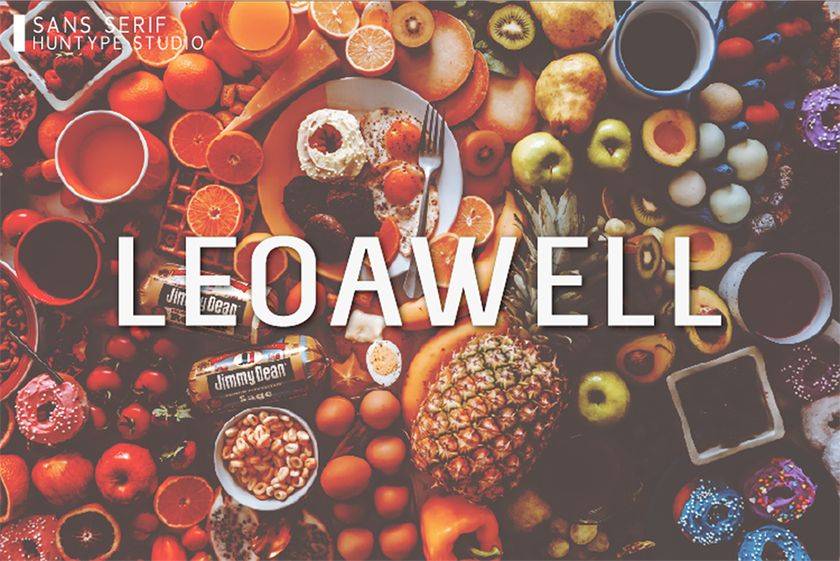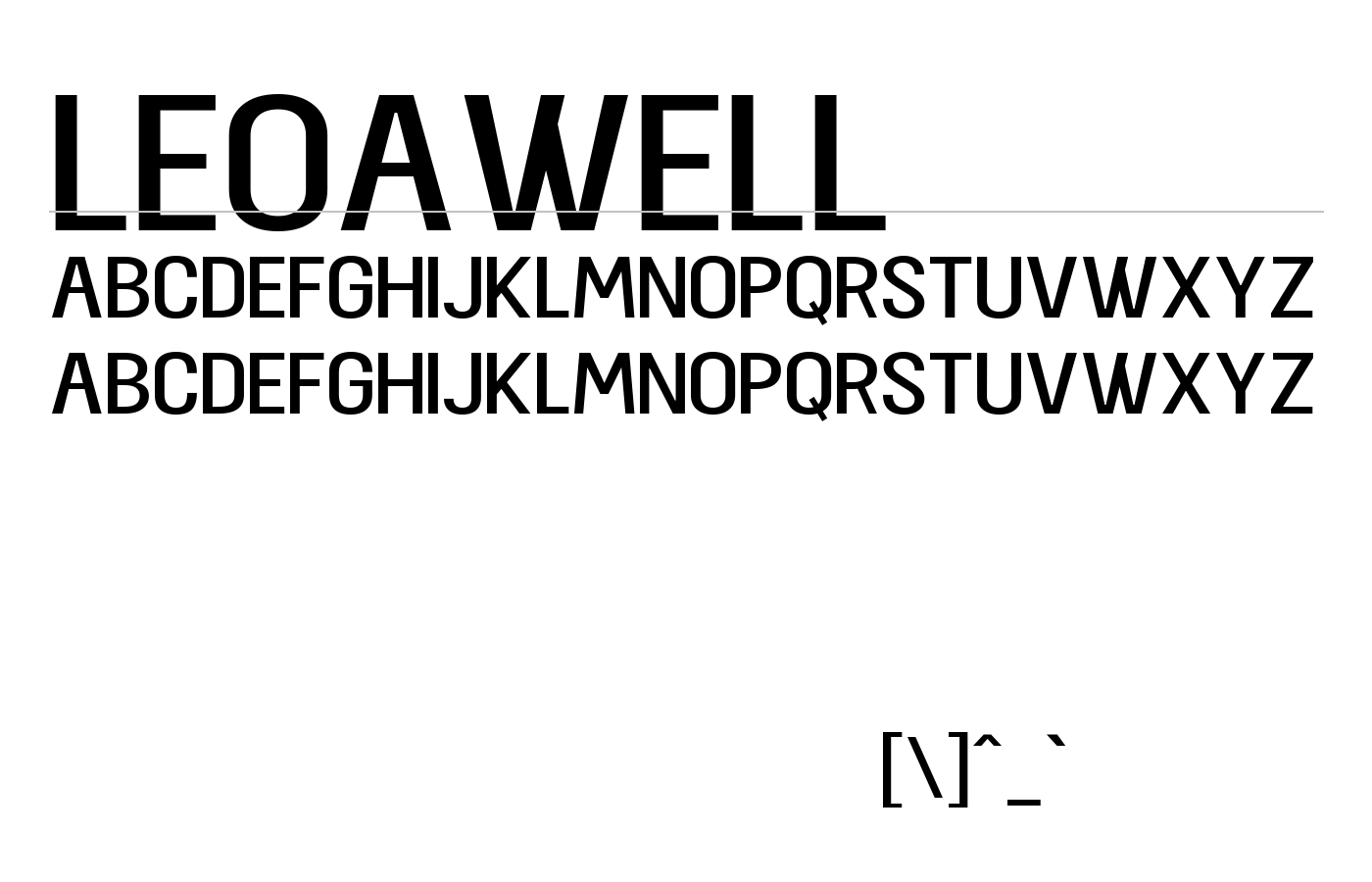
Leoawell is a clean and modern sans serif font characterized by its tall, narrow letterforms and consistent, medium weight strokes. Its geometric shapes and high x-height give it a sleek, professional appearance that works well for headlines, branding, and editorial design where clarity and sophistication are key. This font’s minimalist style makes it ideal for contemporary projects that need a refined yet approachable look.
Leoawell Font
About Leoawell Font